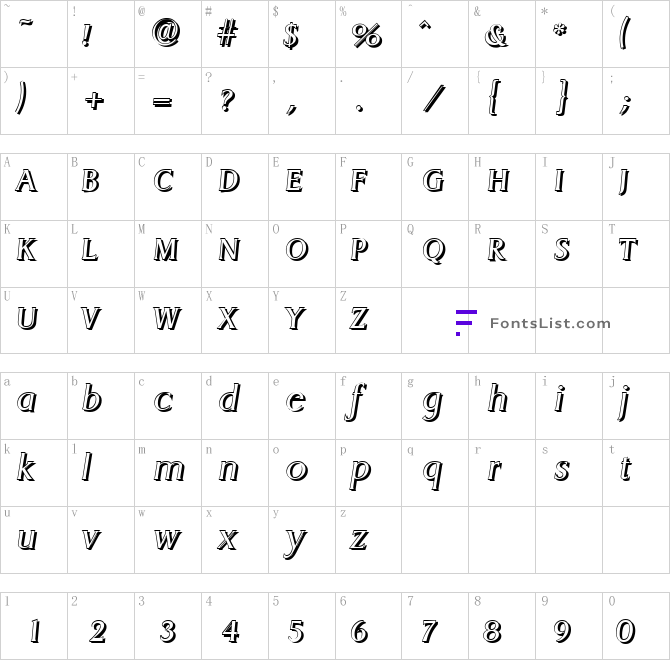
- Font Name:AaronBeckerShadow-Light
- Subfamily:Alts:AaronBeckerShadow-Light-Italic
- Full Name:AaronBeckerShadow-Light-Italic
- PostScript:AaronBeckerShadow-Light-Italic
AaronBeckerShadow-Light-Italic.ttf is a very beautiful artistic font, AaronBeckerShadow-Light-Italic.ttf is widely used in the design and printing of various books and pictures,AaronBeckerShadow-Light-Italic.ttf has a strong visual impact,AaronBeckerShadow-Light-Italic.ttf is a commonly used font in newspapers, magazines and books, and is used in posters, e-commerce Poster design, store design, logo design, font design and other fields.AaronBeckerShadow-Light-Italic.